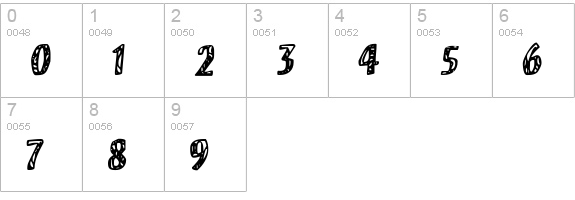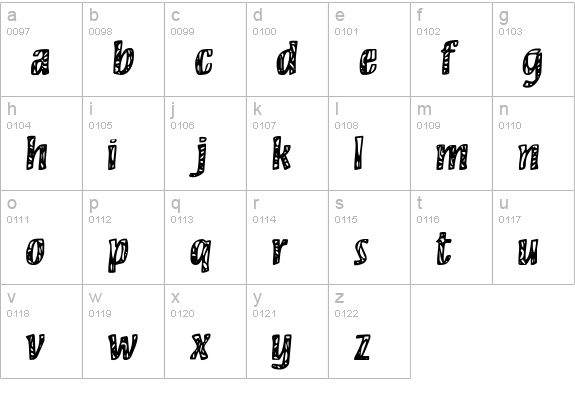
Camouflage Font Details
The Camouflage font is a unique and versatile typeface that is perfect for adding a touch of mystery and intrigue to your designs. With its intricate patterns and hidden details, this font is sure to make a statement and capture attention. Whether you're working on a poster, logo, or branding project, the Camouflage font will add a touch of camouflage-inspired style to your work. The best part? This font is available for free download at FontsMarket.com, making it easily accessible for all your creative projects. So why wait? Download the Camouflage font today and start creating stunning designs that stand out from the crowd.